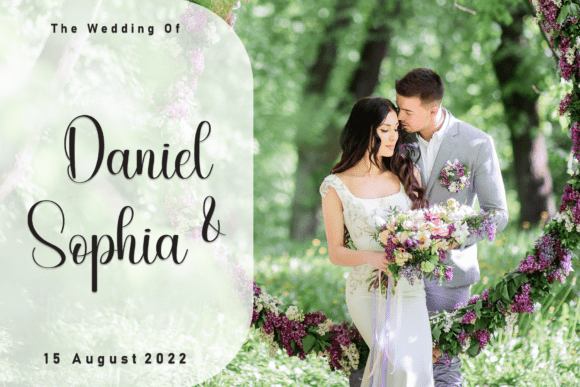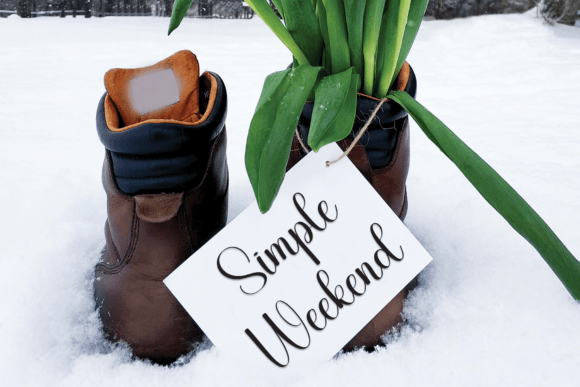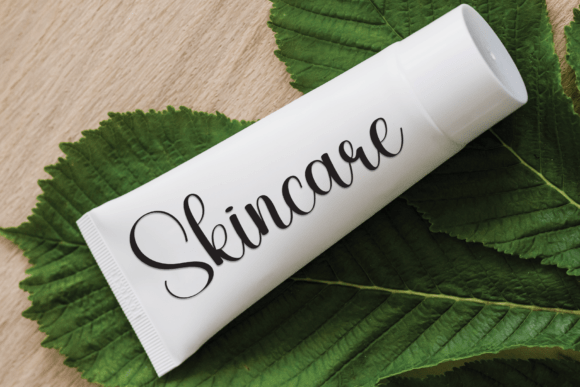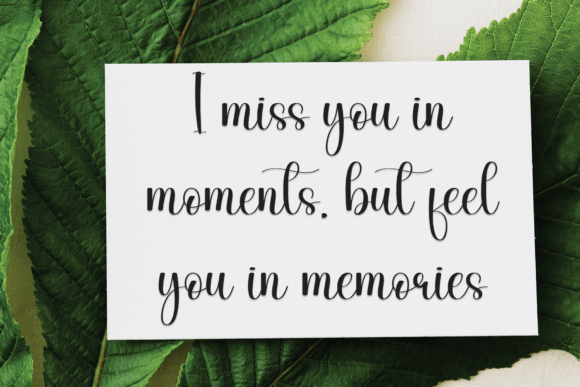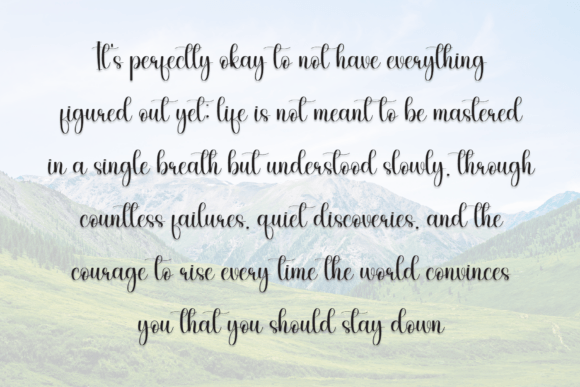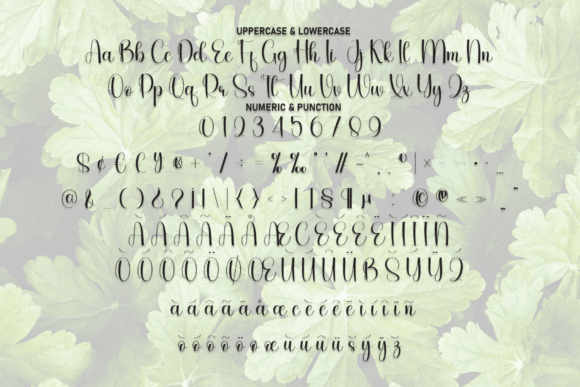
Discover the Delightful Charm of Angelica Font: A Sweet Calligraphy Handwritten Display Font
Are you a designer or crafter looking for a font that can add a touch of warmth and personality to your designs? Look no further than Angelica Font, a stunning handwritten display font that embodies the essence of sweet calligraphy. With its exuberantly charming and lighthearted vibe, this artistic companion is perfect for creating captivating wedding invitations, warmhearted greeting cards, and any design that yearns for an infusion of delight.
The Unique Character of Sweet Calligraphy
Angelica Font, also known as Sweet Calligraphy, boasts a unique character that is sure to enchant you. Each pen stroke is carefully crafted to infuse your designs with an invigorating enthusiasm, making it perfect for designers and crafters who want to add a personal touch to their work. The font’s friendly charisma and charming allure make it an excellent choice for a wide range of design projects, from wedding invitations and greeting cards to branding and packaging.
Wedding invitations and greeting cards are special occasions that deserve a font that can convey warmth, love, and personality. Angelica Font is specifically designed to embellish these types of designs, adding a touch of elegance and sophistication. The font’s sweet calligraphy style is perfect for creating beautiful, one-of-a-kind wedding invitations that will leave a lasting impression on your guests. Similarly, the font’s warm and friendly vibe makes it ideal for creating greeting cards that will make your loved ones feel special.
Infuse Your Designs with Delight
Angelica Font is more than just a font – it’s an artistic companion that can bring your designs to life. With its unique character and charming allure, this font can add a touch of magic to any design project. Whether you’re a designer, crafter, or DIY enthusiast, Angelica Font is the perfect choice for anyone looking to infuse their designs with an invigorating enthusiasm. The font’s sweet calligraphy style is versatile and can be used for a wide range of design projects, from digital art to print-on-demand products.
Key Features of Angelica Font
- Handwritten display font: Angelica Font is a beautiful handwritten display font that boasts a unique character and charming allure.
- Sweet calligraphy style: The font’s sweet calligraphy style is perfect for creating beautiful, one-of-a-kind wedding invitations, greeting cards, and other design projects.
- Lighthearted and friendly vibe: Angelica Font has a lighthearted and friendly vibe that makes it perfect for designs that require a personal touch.
- Invigorating enthusiasm: The font’s unique character and charming allure can infuse your designs with an invigorating enthusiasm, making it perfect for designers and crafters who want to add a touch of magic to their work.
- Use it for digital art and print-on-demand products: The font’s versatile style makes it perfect for use in digital art and print-on-demand products, such as t-shirts, mugs, and phone cases.
Angelica Font is a stunning handwritten display font that embodies the essence of sweet calligraphy. With its unique character, charming allure, and lighthearted vibe, this font is perfect for designers and crafters who want to add a touch of warmth and personality to their designs. Whether you’re creating wedding invitations, greeting cards, or other design projects, Angelica Font is the perfect choice for anyone looking to infuse their designs with an invigorating enthusiasm.